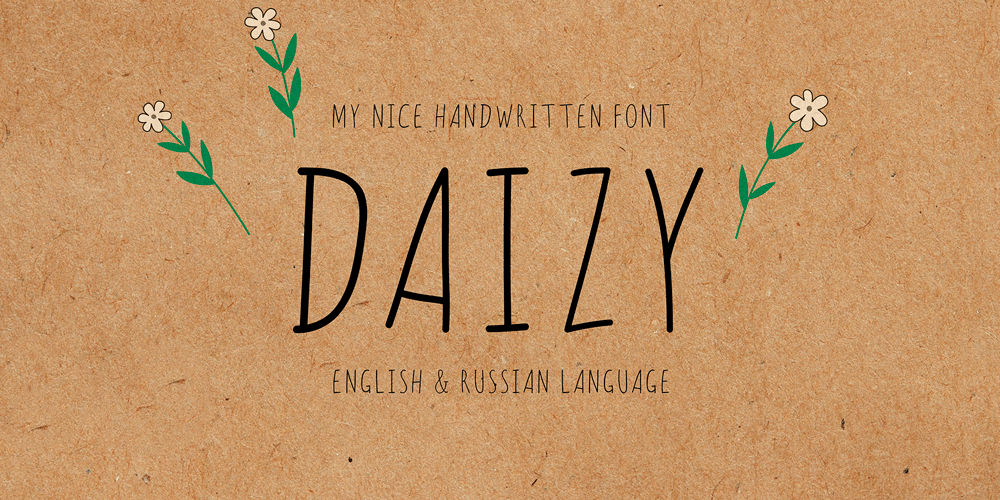
Daizy Font Family was designed by Anastasia Kuznetsova and published by Anastasia Kuznetsova. Daizy contains 1 styles and family package options. I present my funny and very cute font “Daizy”Great for sweet greeting cards and invitations, for playful branding and quotes, for unusual packaging and much more!This font is unique and lightweight:)Font Features• character set A-Z, A-Я;• 2 languages (Russian and English);• numbers and punctuation marks, symbolsIt is recommended to use it in Adobe Illustrator or Adobe PhotoshopMade with love ♡Thank you for stopping by, and I wish you a creative day!